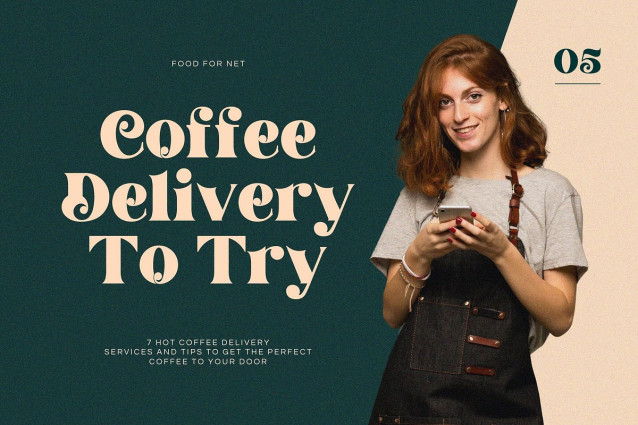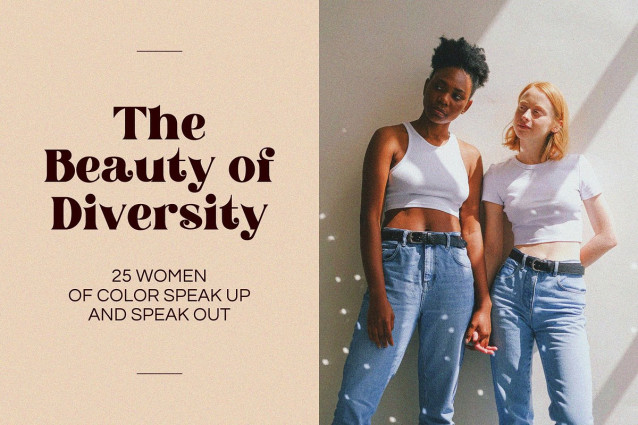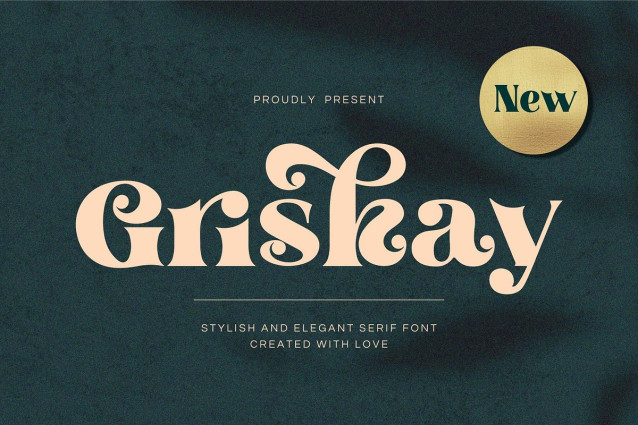
Griskay Font
Griskay Font, a stunningly elegant and stylish serif font that masterfully blends timeless sophistication with a touch of playful charm. Characterized by its dramatic contrast between thick and thin strokes, Griskay features beautifully crafted curves, unique ligatures, and enchanting swashes that add a romantic and expressive rhythm.
Its distinct personality is reminiscent of classic European cinema and high fashion editorials, making it an impeccable choice for projects that require a refined and memorable touch.
Perfect for luxury branding, logo design, captivating headlines, wedding invitations, magazine layouts, and standout social media graphics, Griskay provides the versatility and beauty to make your creations truly unforgettable.